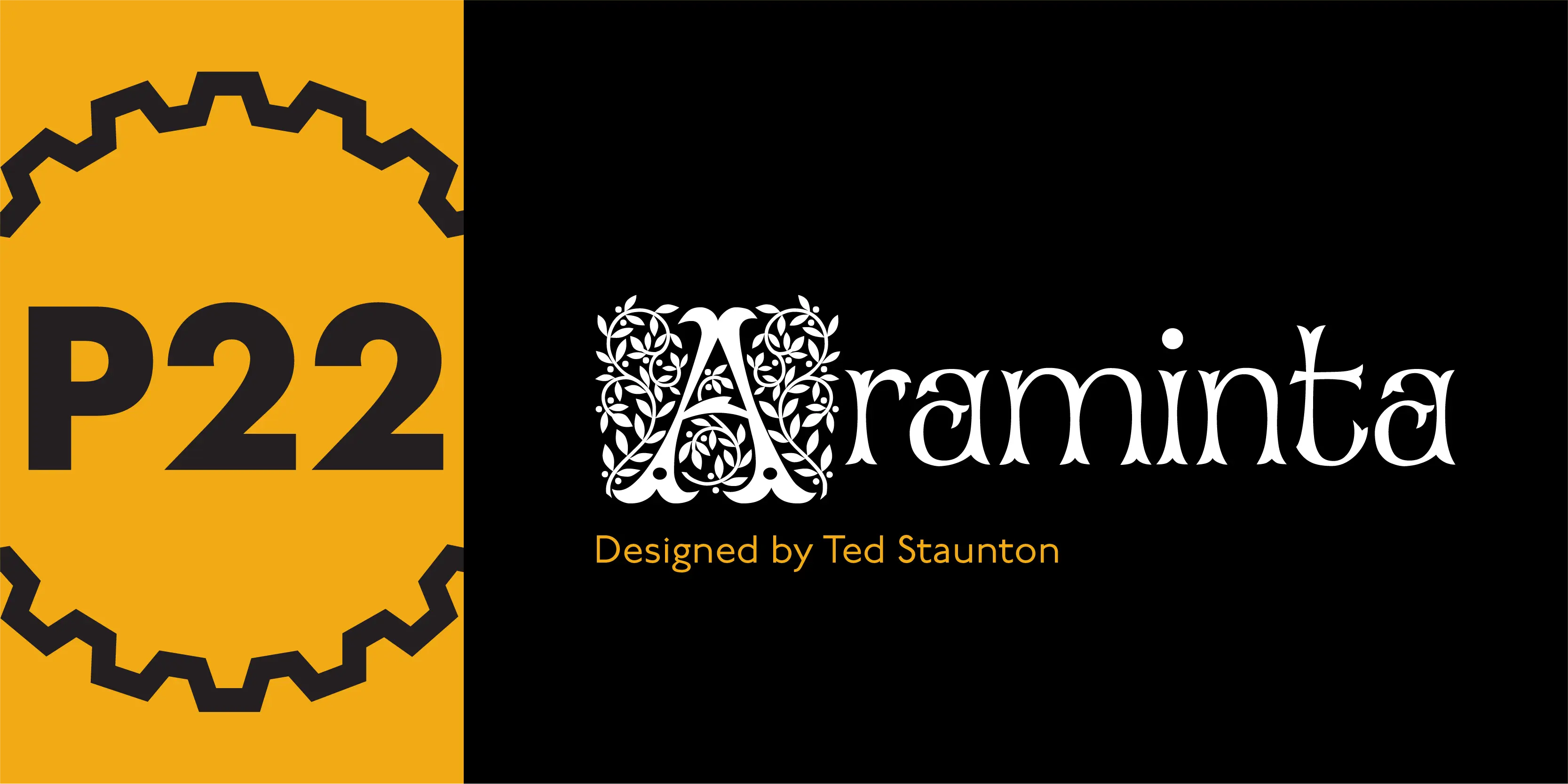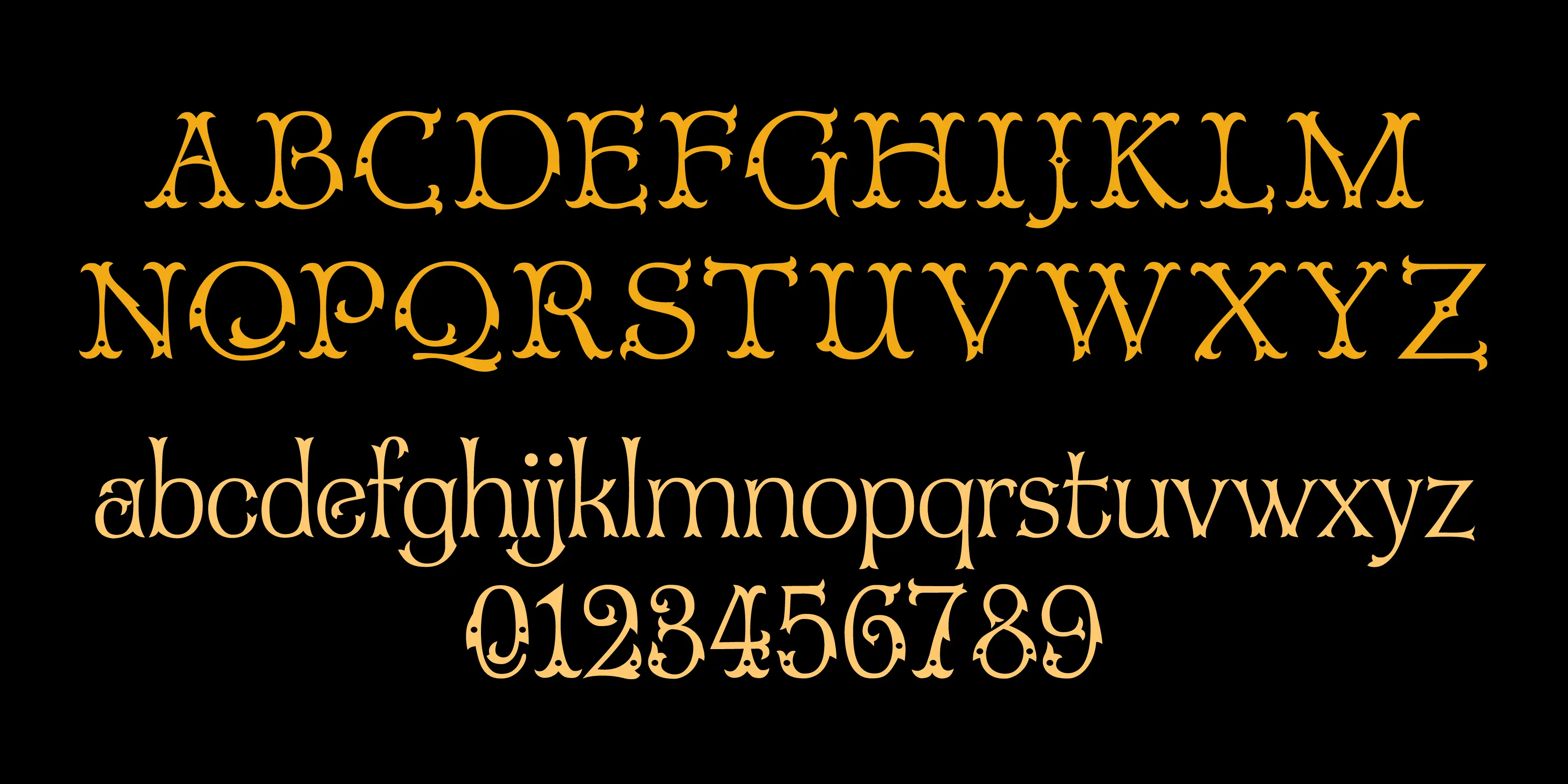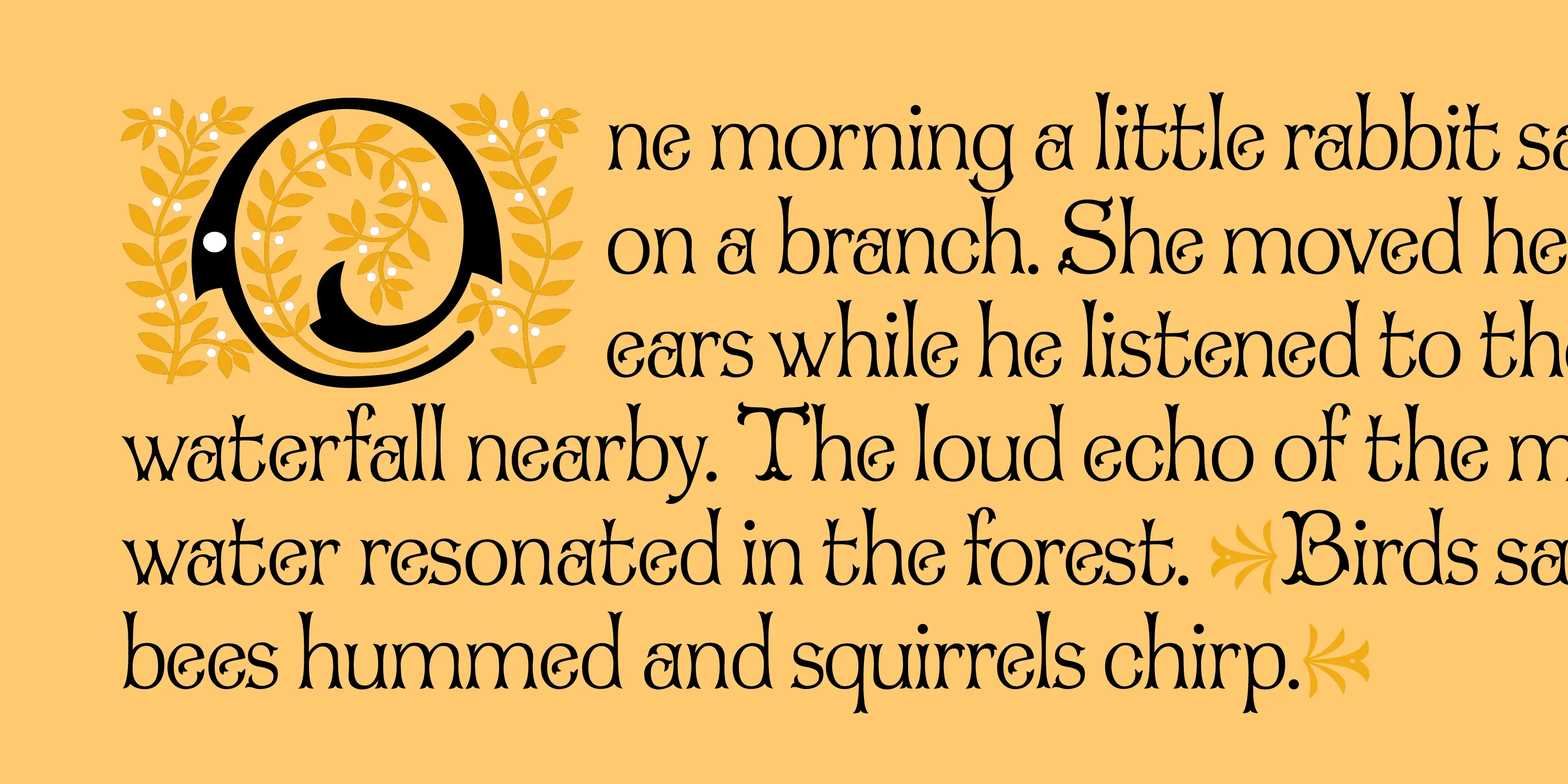
Araminta Font Family
• Araminta Branches
• Araminta Buds
• Araminta Caps
• Araminta Circles
• Araminta Initials
• Araminta Regular
Araminta
P22 Araminta is a new font family from the prolific Script of Ted Staunton. Araminta Regular is a Tuscan style decorative font in the Victorian tradition. The Araminta Caps features a multi-font chromatic type system which allows for layering in colors using optional floral embellishments or simple colorful splashes in drop cap settings.